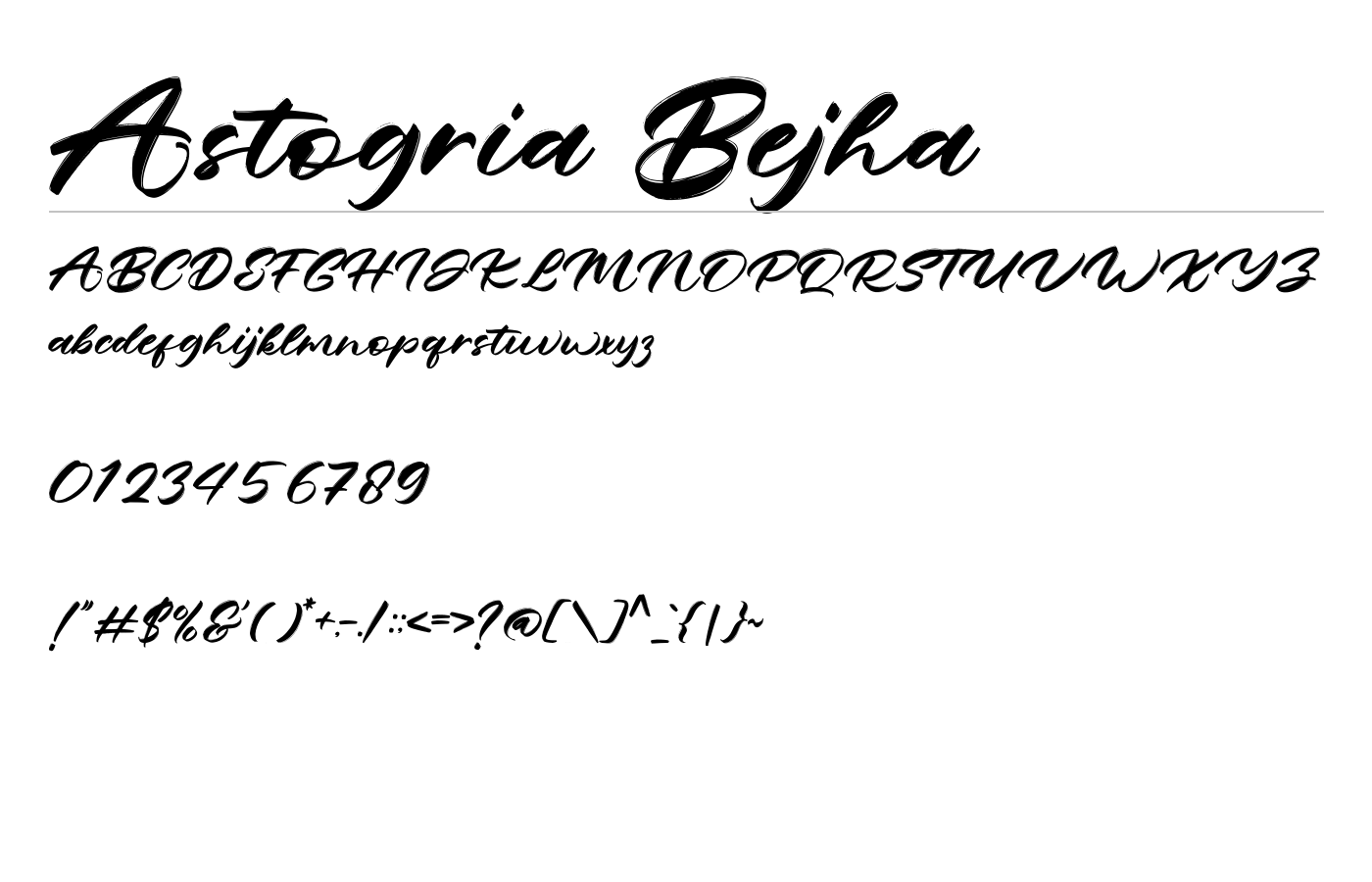
Astogria Bejha is an elegant script font with a bold, brush-like appearance that conveys a sense of sophistication and creativity. Its fluid strokes and dynamic letterforms make it perfect for branding, invitations, and headlines where a personal, artistic touch is desired. This font’s stylish and confident vibe suits fashion, luxury, and creative projects looking to make a memorable impression.
Astogria Bejha Font
About Astogria Bejha Font
| Font family | Astogria Bejha Font |
| Designer | Icep Anwar Fadhil |